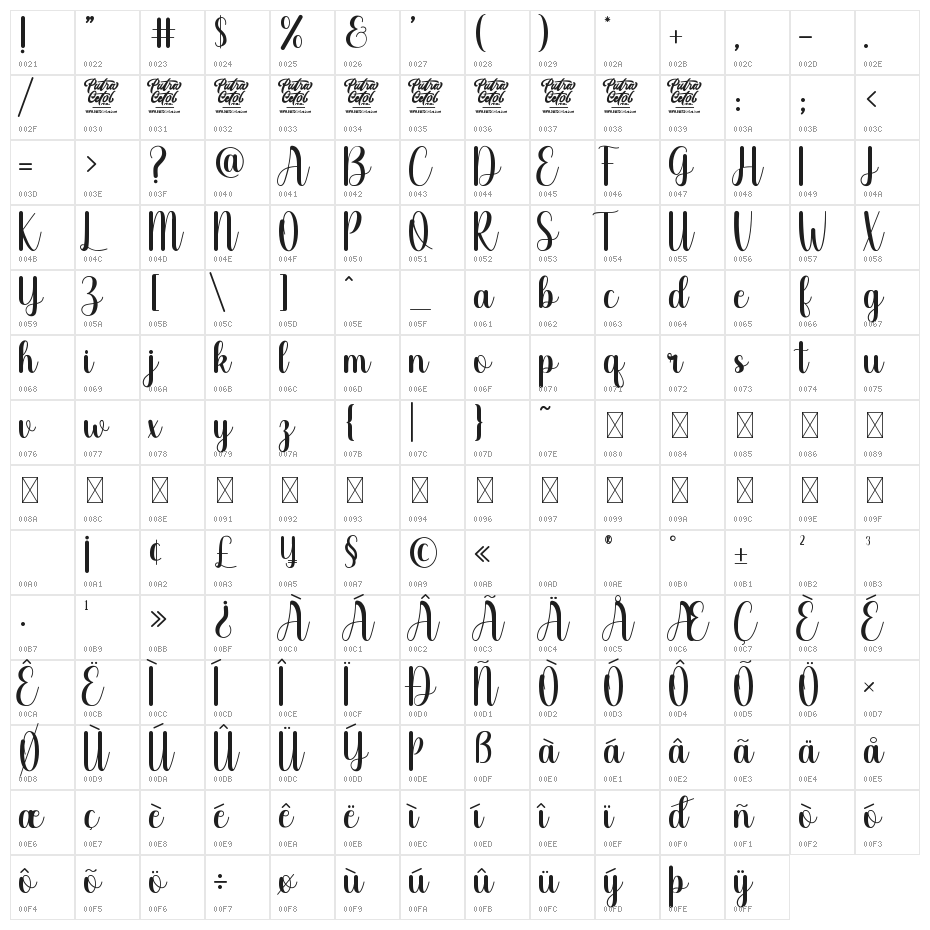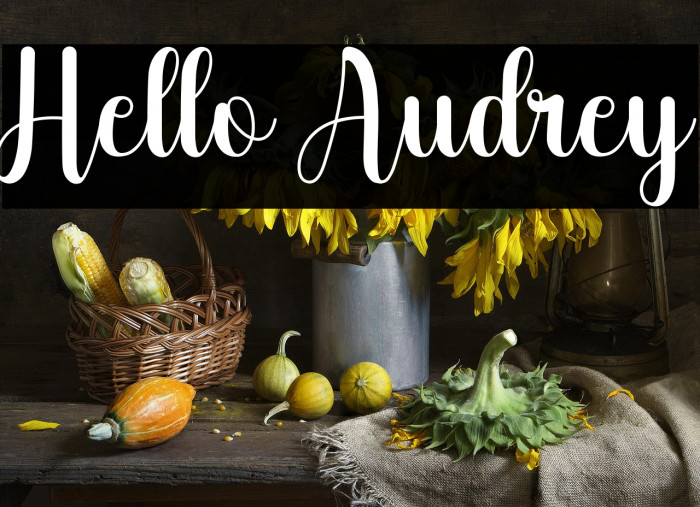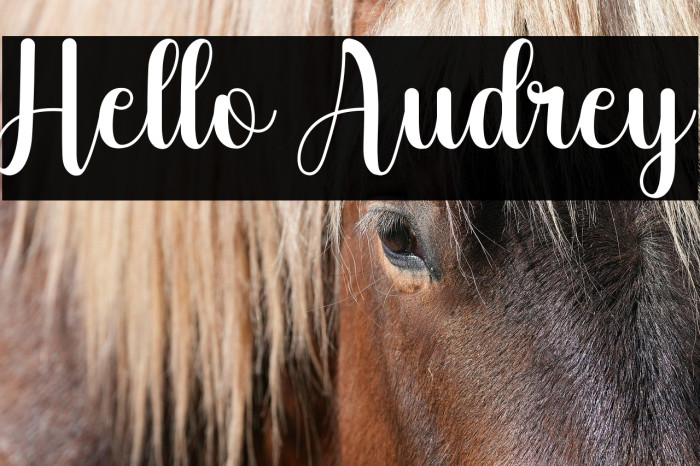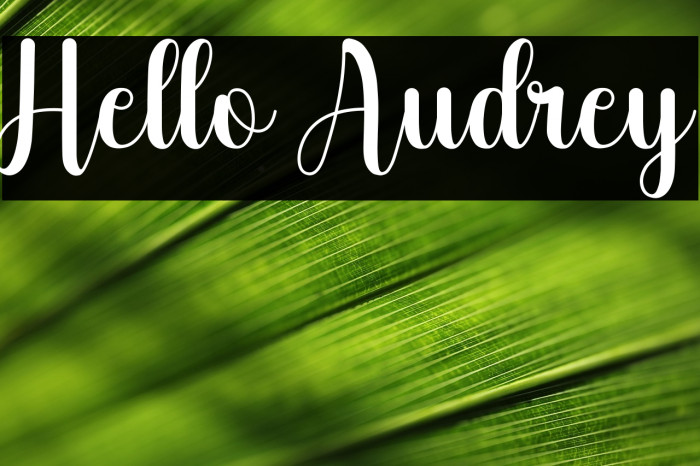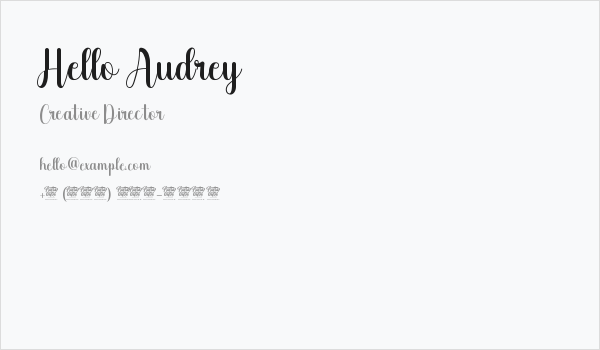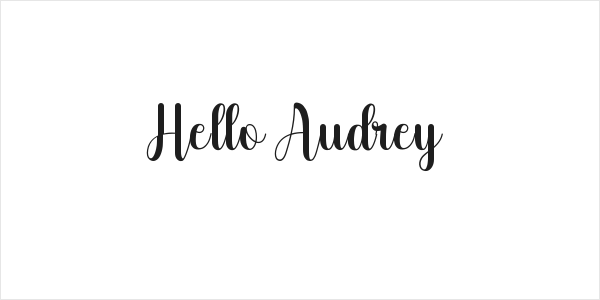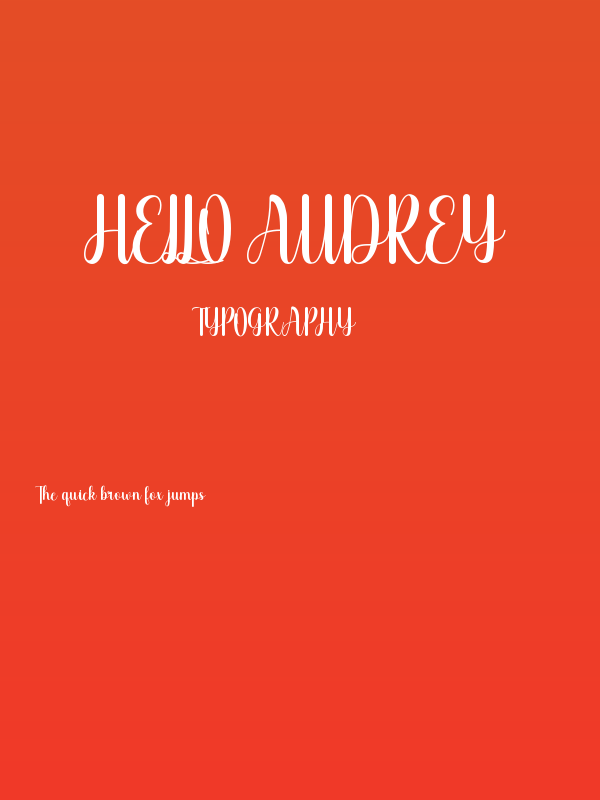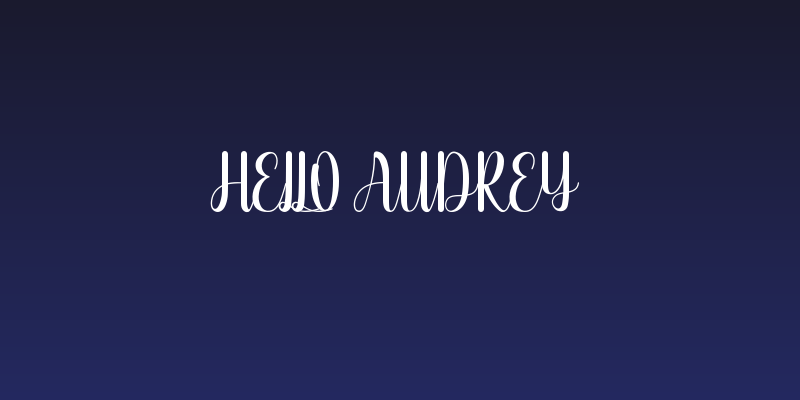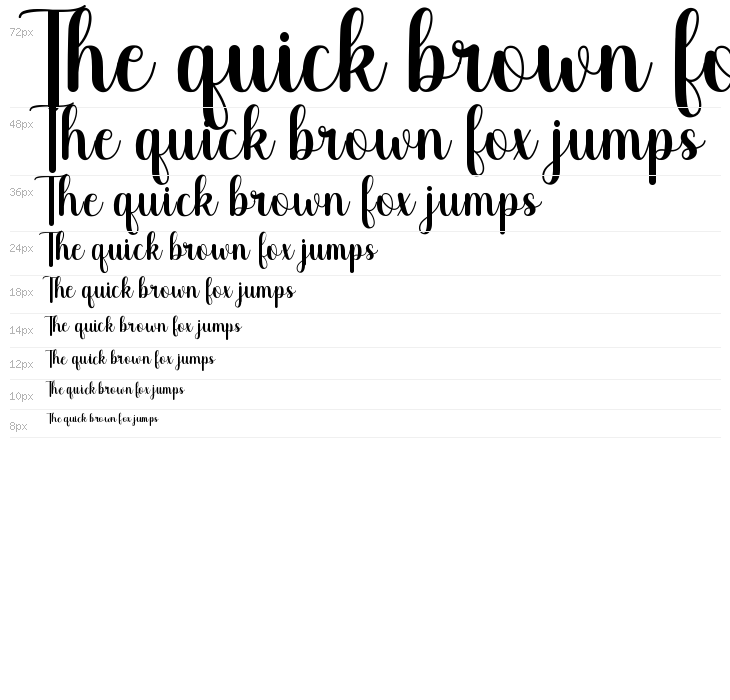
Hello Audrey Font
| 整体风格 | Elegant, Artistic |
| 使用场景 | Logos, Invitations, Decorative text |
| 推荐项目 | Ideal for wedding invitations, branding, logos, and decorative text. |